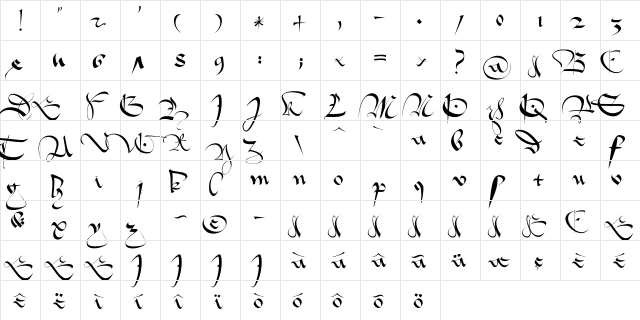
1413 Cursive Regular
| Foundry | Errance |
| Designer | Errance |
Design Context for 1413 Cursive Typeface
1413 Cursive brings a calligraphic fluidity to the page — its connecting strokes and expressive curves give it an unmistakably human quality.
Font Pairing: Combine 1413 Cursive with a simple geometric sans for maximum contrast — the tension between flowing curves and clean structure is a classic typographic pairing.
Pro Tip: Pair 1413 Cursive with a clean sans-serif for supporting text. The contrast between fluid script and geometric structure creates an elegant typographic hierarchy.